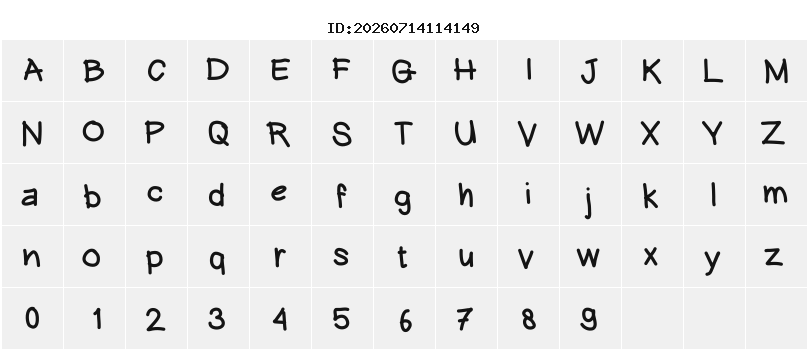
HeinWriting Preview
• Font Name: HeinWriting
About HeinWriting.ttf
HeinWriting.ttf is a modern, elegant sans-serif font designed for ultimate readability and visual harmony. Perfect for branding, headlines, web design, and print materials.